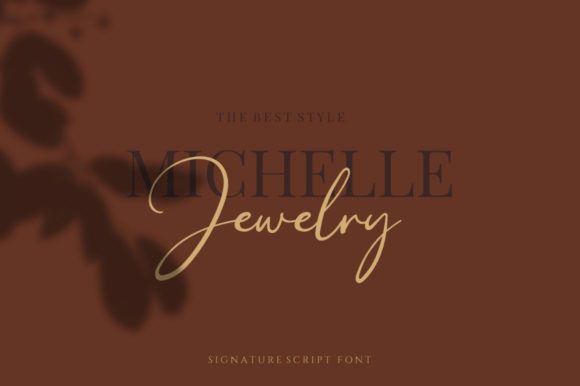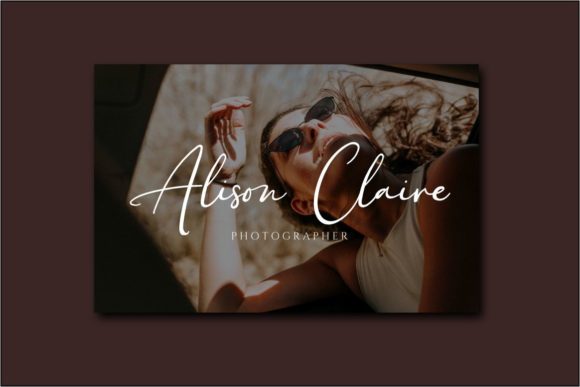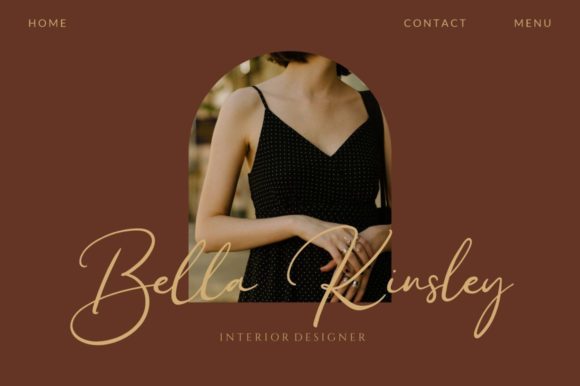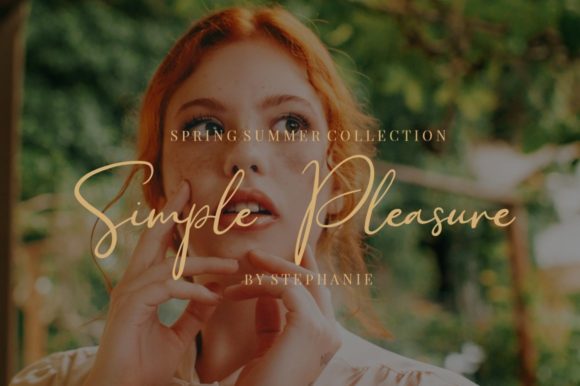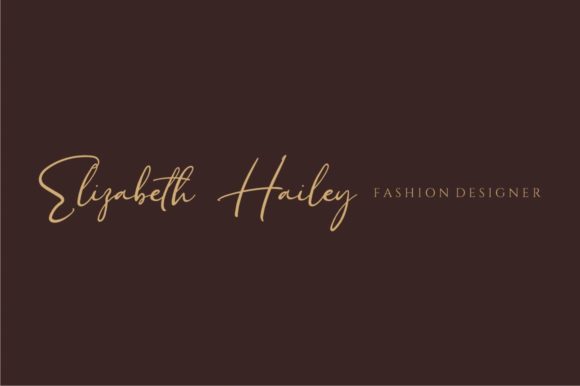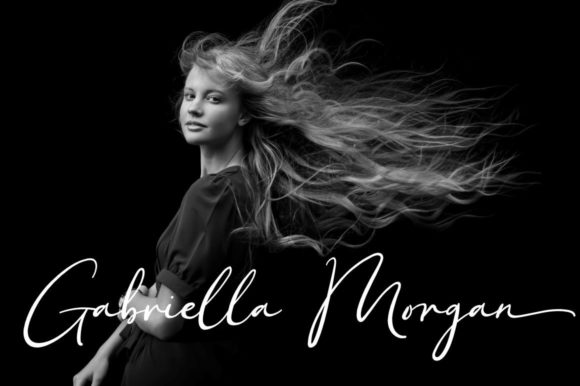
Introducing Billies Island Font: A Romantic and Sweet Calligraphy Typeface
Are you looking for a font that adds a touch of luxury and romance to your design projects? Look no further than Billies Island Font! This beautiful calligraphy typeface is perfect for designers and crafters who want to create stunning visuals that exude elegance and sophistication.
What Makes Billies Island Font Special?
Billies Island Font is a romantic and sweet calligraphy typeface that features characters that dance along the baseline. This unique design element gives the font a playful and whimsical feel, making it perfect for projects that require a touch of personality. The font is also PUA encoded, which means that you can access all of the amazing glyphs and ligatures with ease.
Luxury Spark for Your Design Projects
Billies Island Font is designed to add a luxury spark to any design project that you wish to create. Whether you’re working on a branding project, a wedding invitation, or a packaging design, this font is sure to elevate your work to the next level. The font’s elegant and sophisticated design makes it perfect for projects that require a high-end feel.
Features of Billies Island Font
• Romantic and sweet calligraphy typeface: Billies Island Font features a beautiful calligraphy design that is perfect for projects that require a touch of elegance and sophistication.
• Characters that dance along the baseline: The font’s unique design element gives it a playful and whimsical feel, making it perfect for projects that require a touch of personality.
• PUA encoded: The font is PUA encoded, which means that you can access all of the amazing glyphs and ligatures with ease.
• Luxury spark: Billies Island Font is designed to add a luxury spark to any design project that you wish to create.
Billies Island Font is perfect for designers and crafters who want to create stunning visuals that exude elegance and sophistication. The font is versatile and can be used for a variety of projects, including:
• Branding projects: Use Billies Island Font to create a luxurious and sophisticated brand identity.
• Wedding invitations: Add a touch of elegance and romance to your wedding invitations with Billies Island Font.
• Packaging design: Use the font to create stunning packaging designs that stand out on store shelves.
• Stationery and cards: Create beautiful stationery and cards with Billies Island Font.
Why Choose Billies Island Font?
There are many reasons why you should choose Billies Island Font for your design projects. Here are a few:
• Unique design: Billies Island Font features a unique design that sets it apart from other fonts.
• Elegant and sophisticated: The font’s elegant and sophisticated design makes it perfect for projects that require a high-end feel.
• Easy to use: The font is PUA encoded, which means that you can access all of the amazing glyphs and ligatures with ease.
• Versatile: Billies Island Font is versatile and can be used for a variety of projects.
Font Name Billies Island Font
Author Reyrey Blue
In conclusion, Billies Island Font is a romantic and sweet calligraphy typeface that is perfect for designers and crafters who want to create stunning visuals that exude elegance and sophistication. The font’s unique design, elegant and sophisticated feel, and ease of use make it a great choice for a variety of projects. Whether you’re working on a branding project, a wedding invitation, or a packaging design, Billies Island Font is sure to elevate your work to the next level.